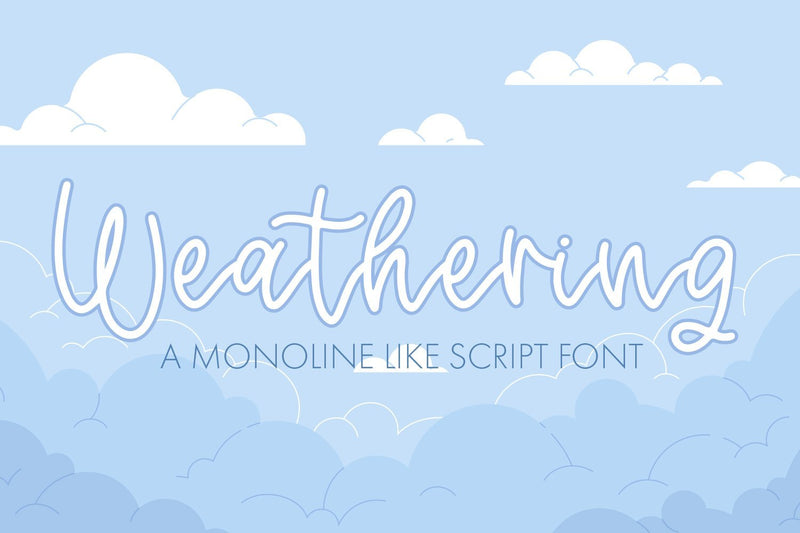
Weathering - A Monoline Script Font
Weathering A Monoline Script Font
Weathering is a fun monoline script font that is perfect to use for all your quirky projects. This font will definitely spark up you designs and diy:s for your personalised projects and will be a perfect gift for those who are just as quirky as you.
This font can be used for anything such as T-Shirt designs, phone cases, greeting cards, invitations, mugs and so much more! Be creative but most importantly have fun!
- Weathering - Comes with Uppercase A-Z and lowercase a-z letters, 0-9 numbers, limited punctuation and supports Western European Languages